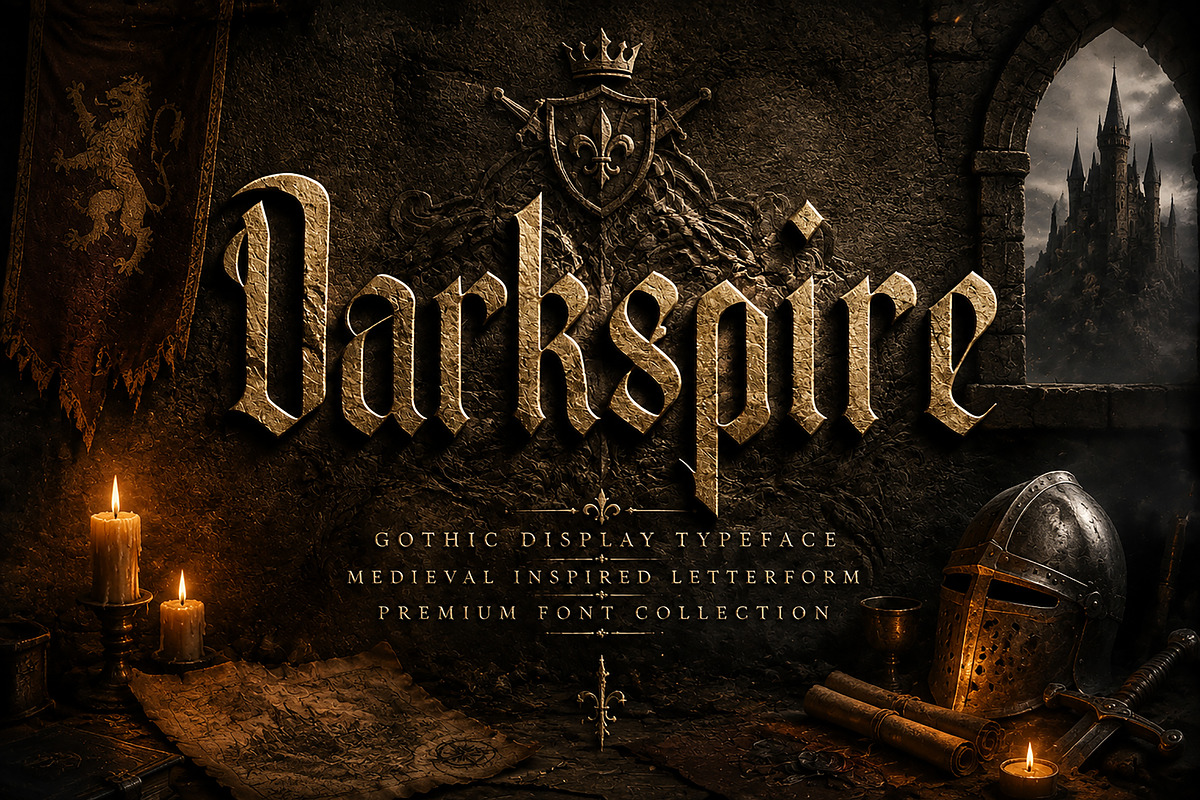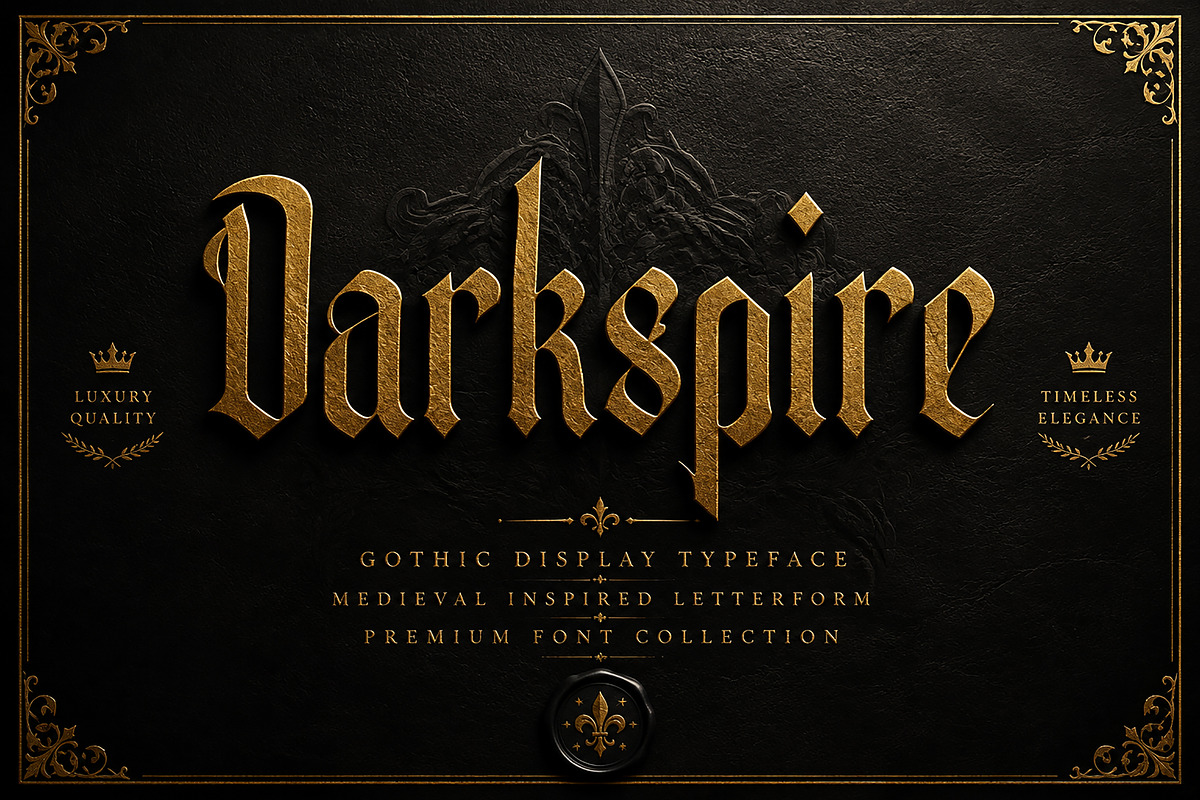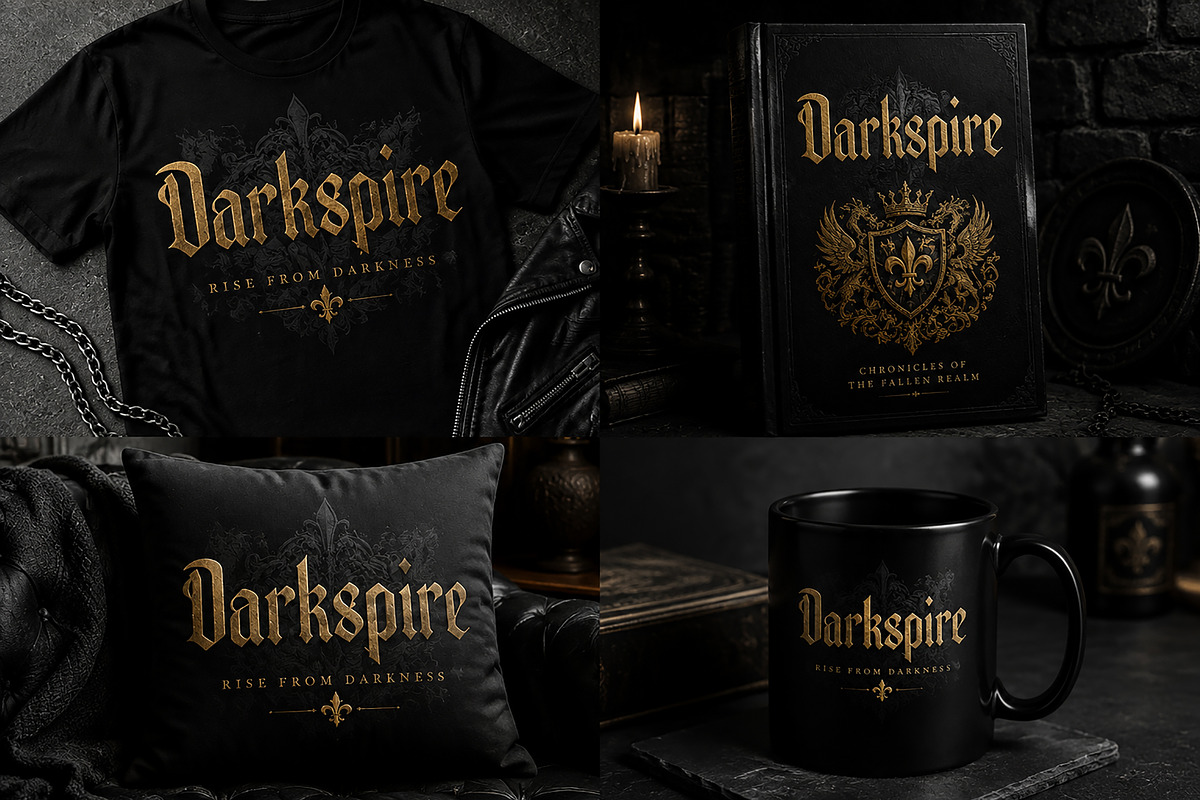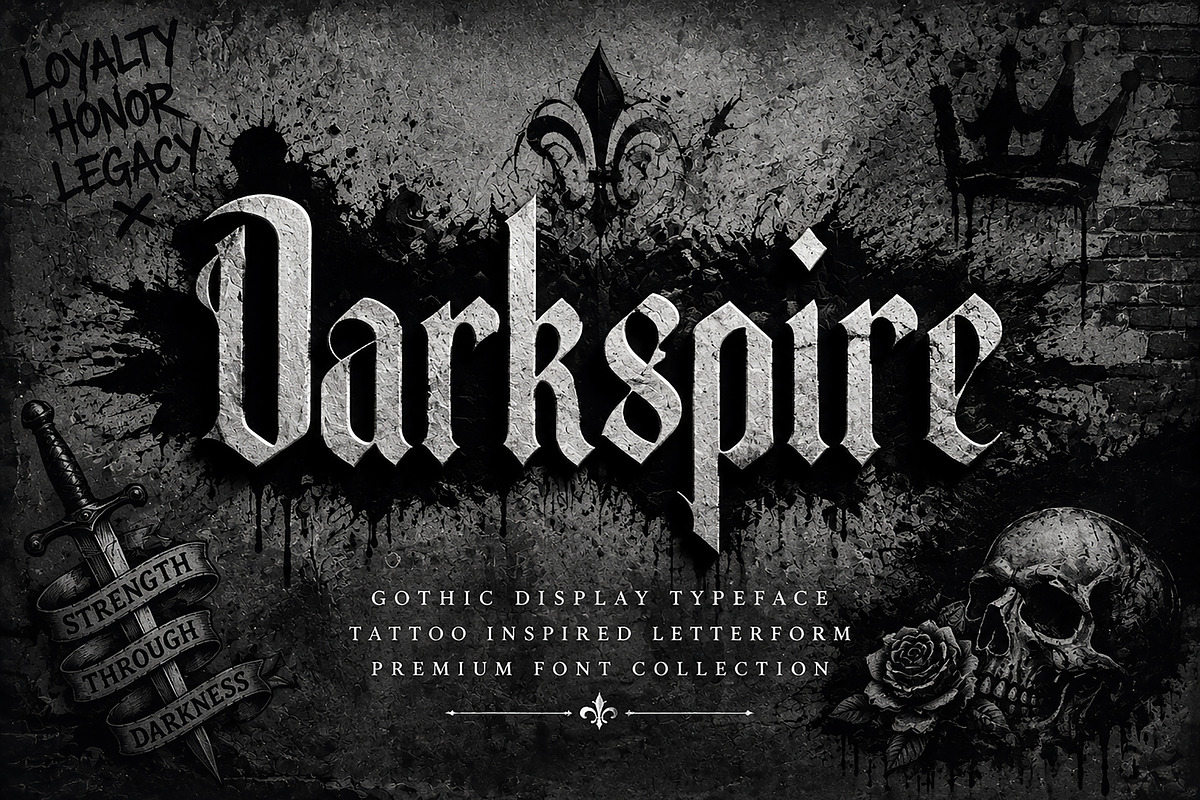
Darkspire
Darkspire – Gothic Blackletter Display Font
Darkspire is a powerful Gothic Blackletter display font inspired by medieval history, dark fantasy, and classic European typography. Designed with sharp, dramatic letterforms and a strong vintage character, this typeface brings a mysterious and premium atmosphere to every design project.
Perfect for creating bold and memorable visuals, Darkspire is ideal for luxury branding, tattoo designs, metal and rock artwork, fashion labels, book covers, posters, gaming graphics, packaging, and other creative projects that require a dark and elegant aesthetic.
With its distinctive medieval-inspired style, Darkspire adds a timeless identity and strong visual impact to your designs.
✔ Gothic Blackletter Display Typeface
✔ Medieval-inspired letter design
✔ Bold and dramatic character style
✔ Perfect for logos and branding projects
✔ Suitable for posters, apparel, packaging, and merchandise
Recommended Uses
Darkspire works beautifully for:
Luxury Brand Logos
Fashion Branding
Tattoo Artwork
Streetwear Designs
Metal & Rock Band Graphics
Album Covers
Fantasy Game Titles
Movie Posters
Merchandise Design
Bring Your Designs Into The Darkness
Create powerful, unforgettable designs with Darkspire, a gothic typeface crafted for designers who want a bold medieval presence with a modern creative edge.
Darkspire is a bold Gothic Blackletter display font inspired by medieval typography and dark fantasy aesthetics. Perfect for logos, branding, tattoo designs, posters, book covers, fashion, gaming, and premium creative projects. Includes OTF format and works on Windows.